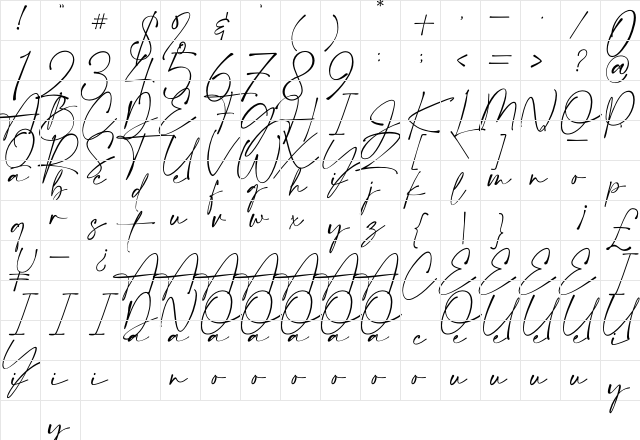
Amalfi Coast Regular Free Font
Amalfi Coast Regular
Designer: typeline 2018
Design Context for Amalfi Coast
Amalfi Coast is a composed and adaptable typeface that performs quietly and consistently across a wide range of design contexts.